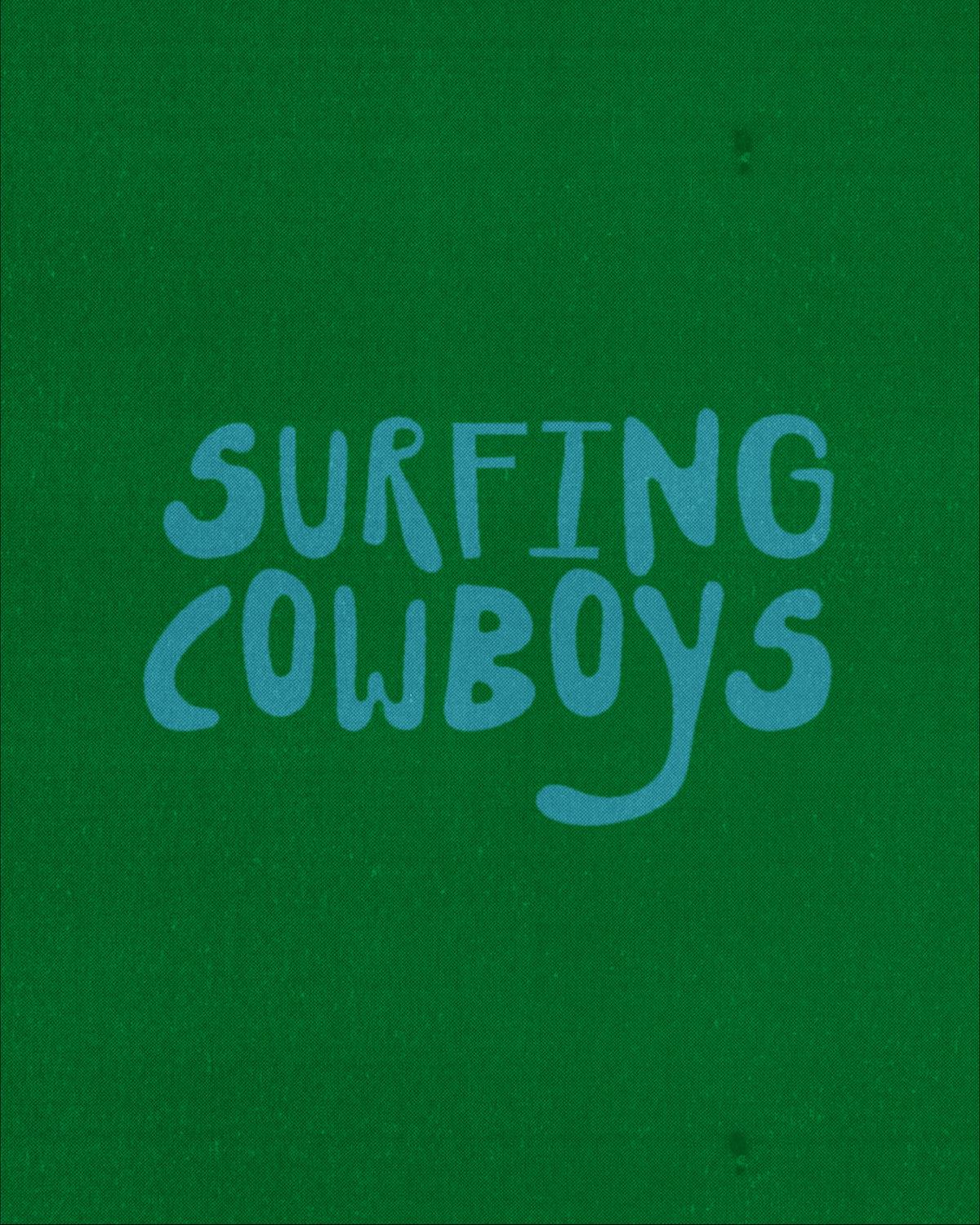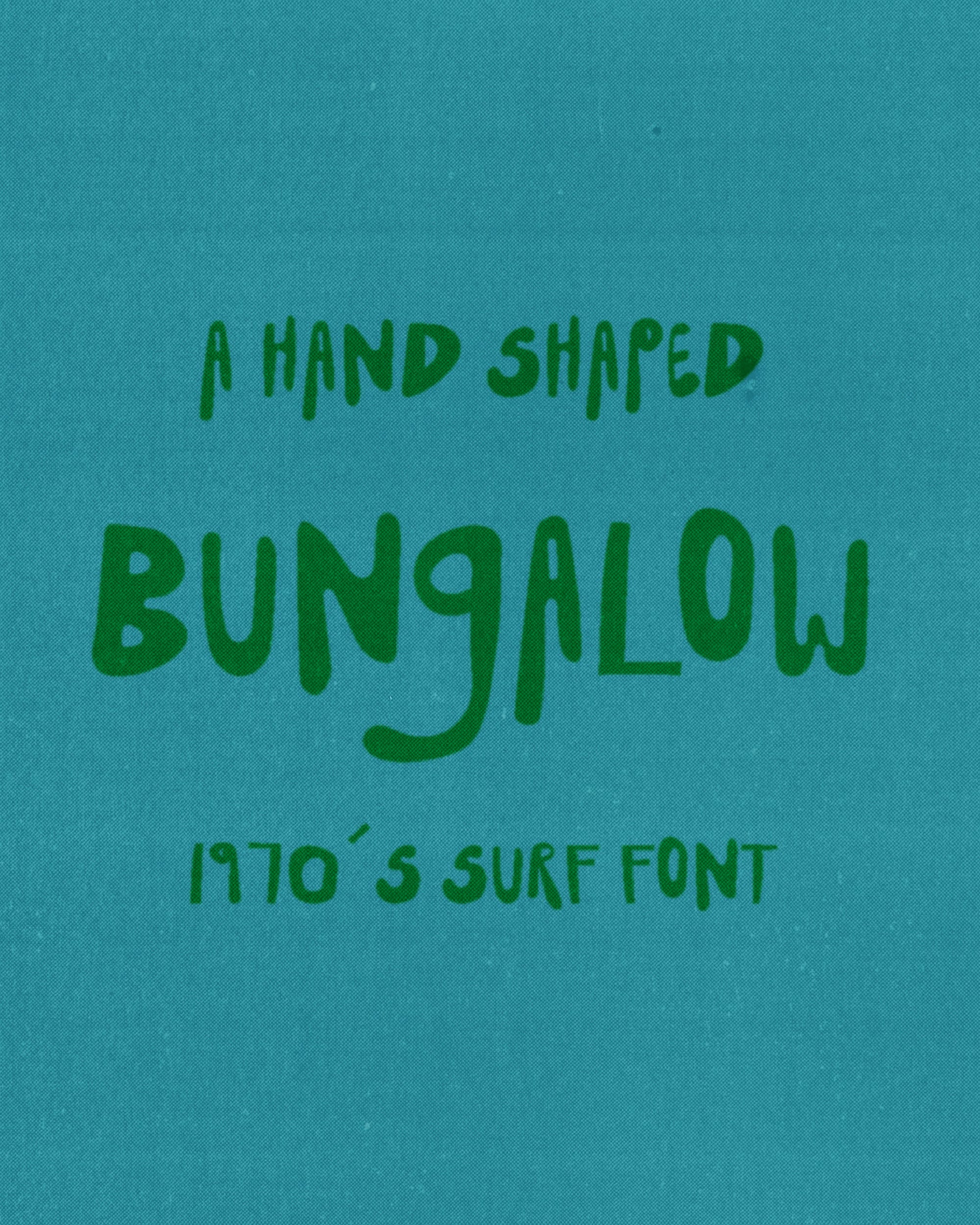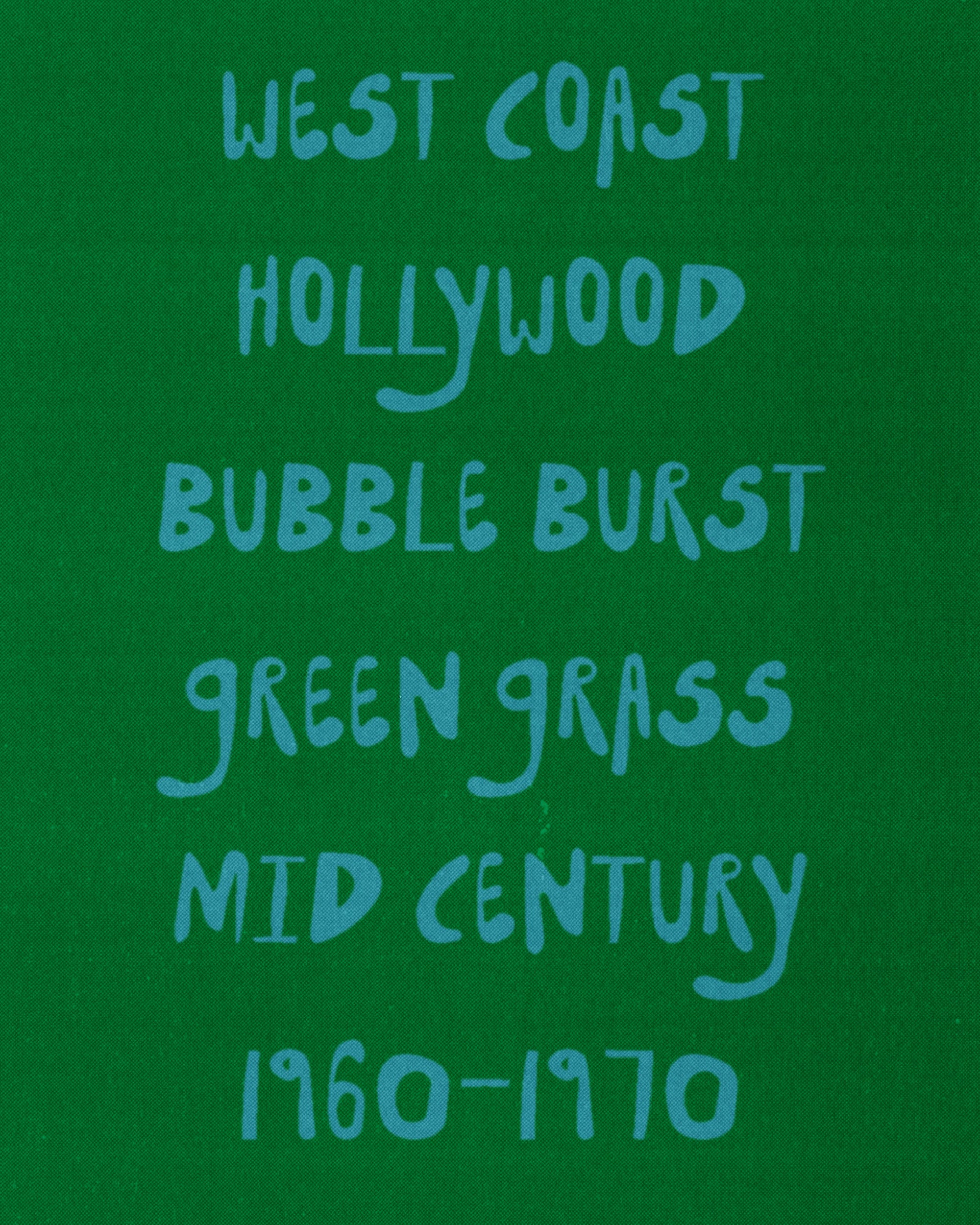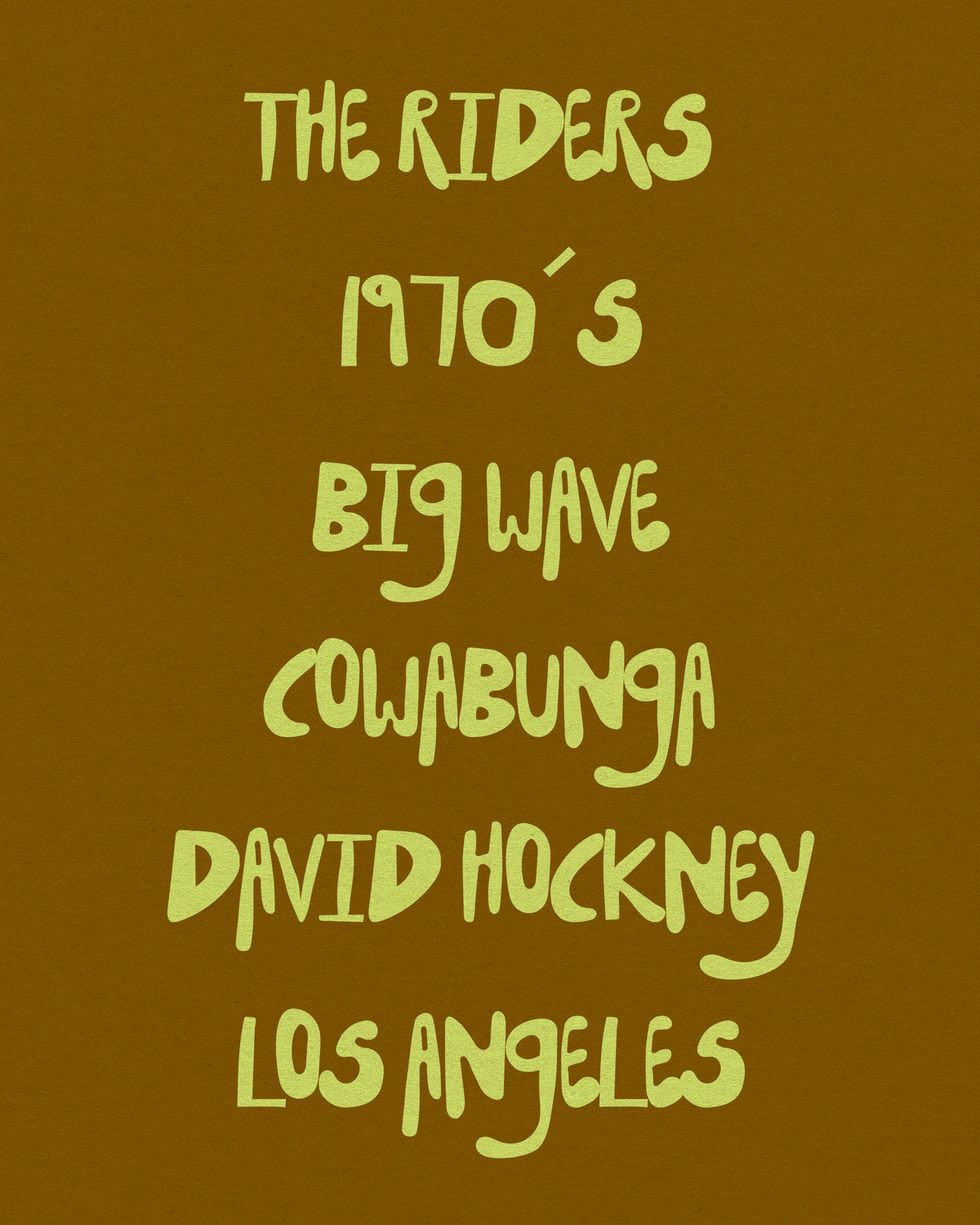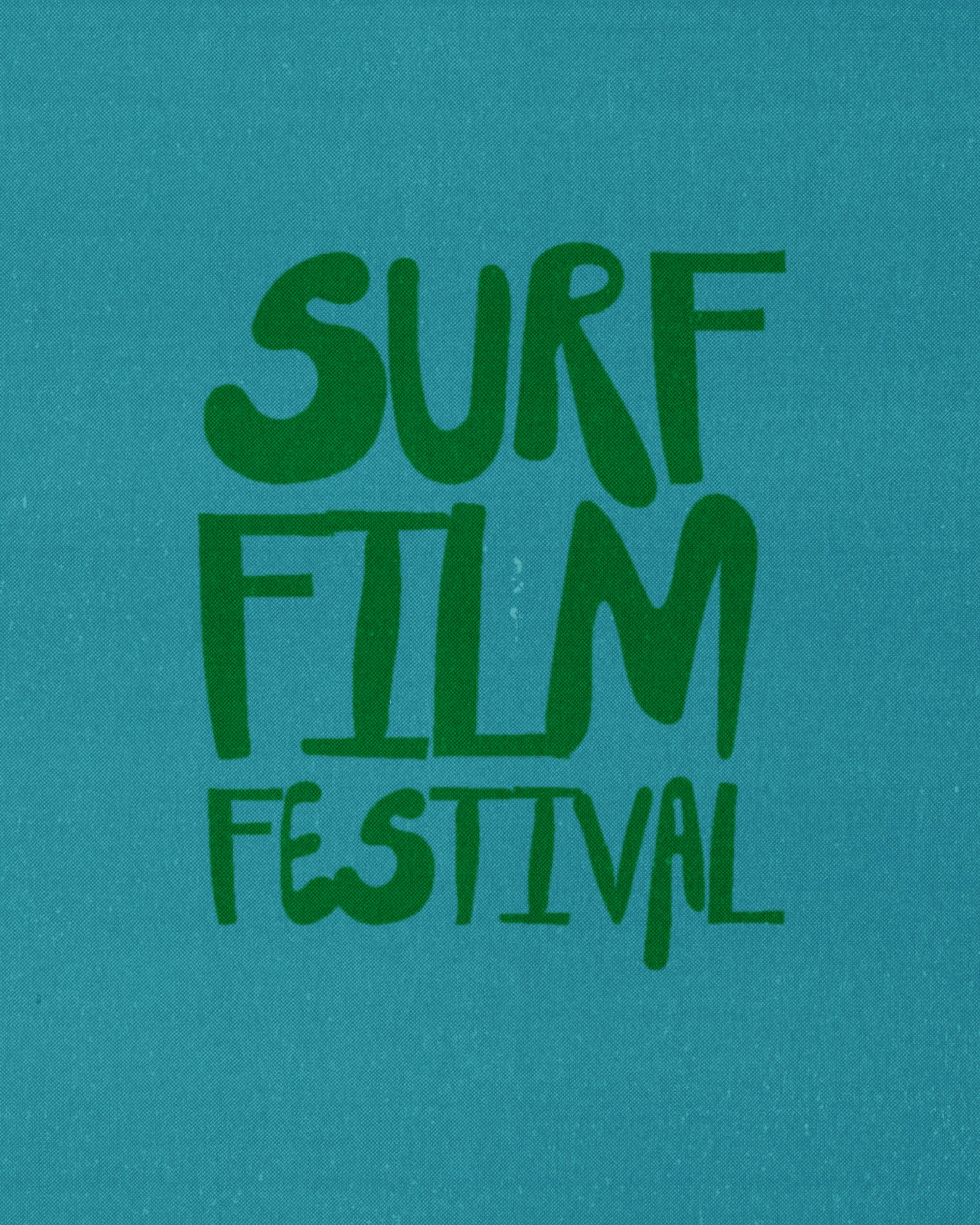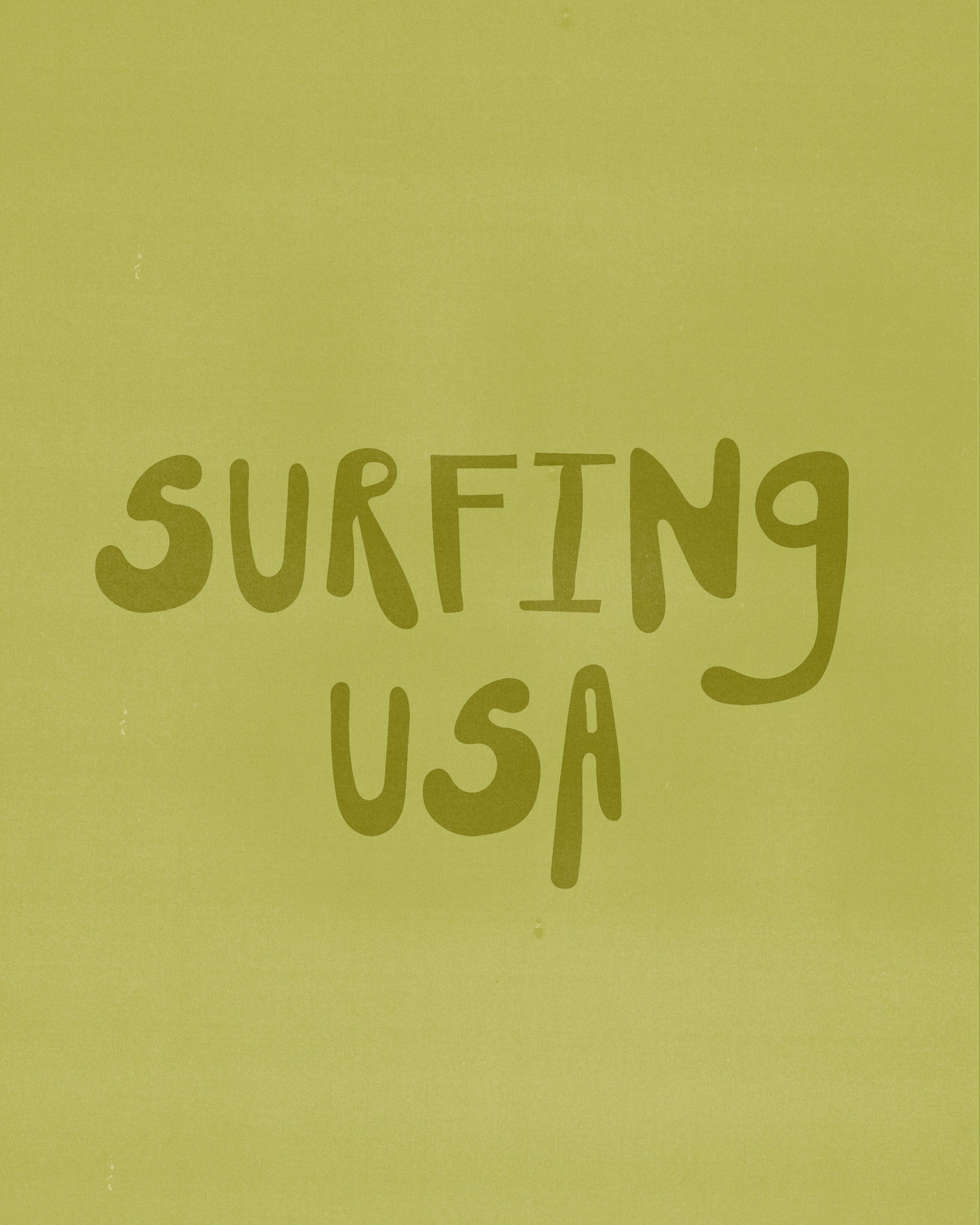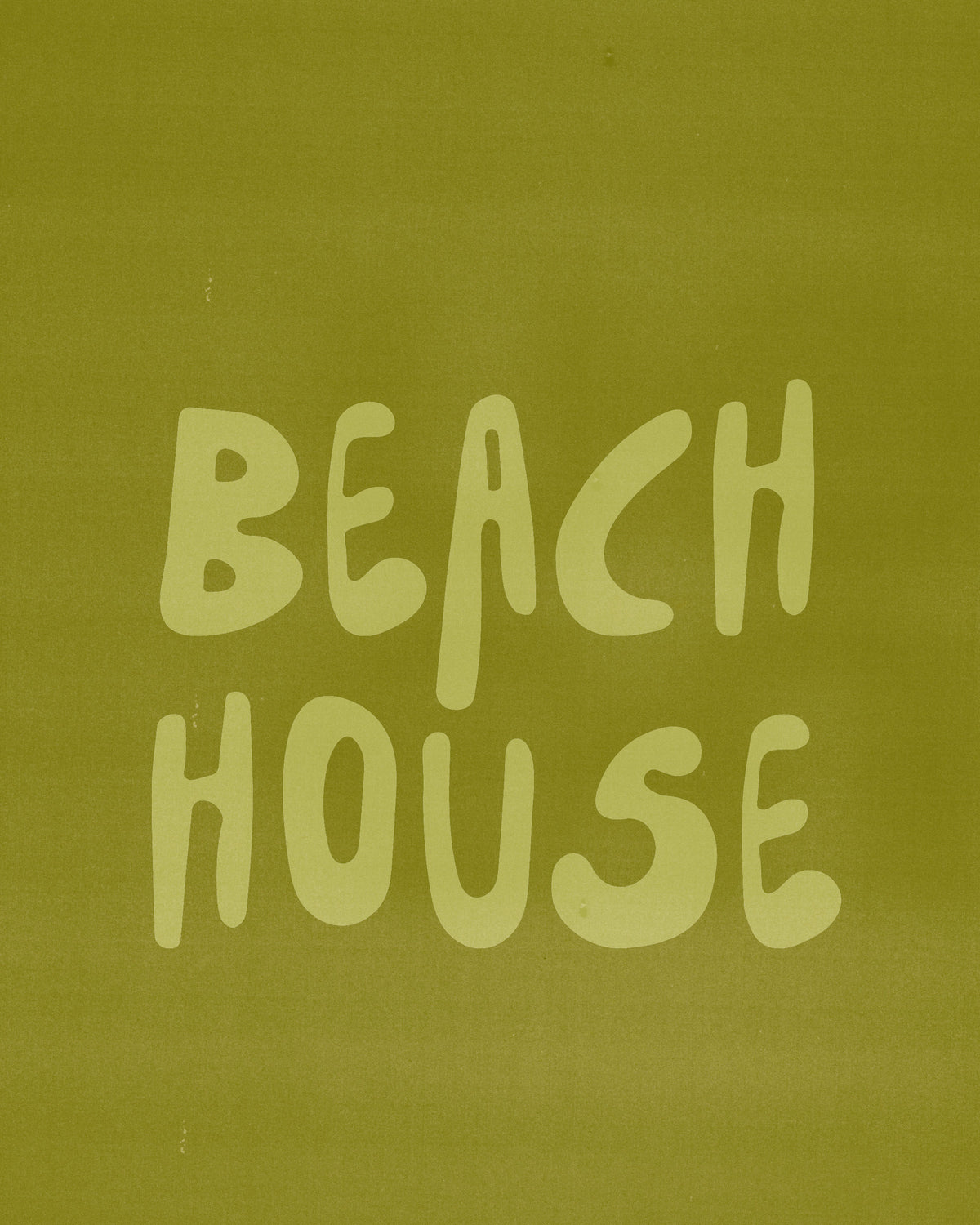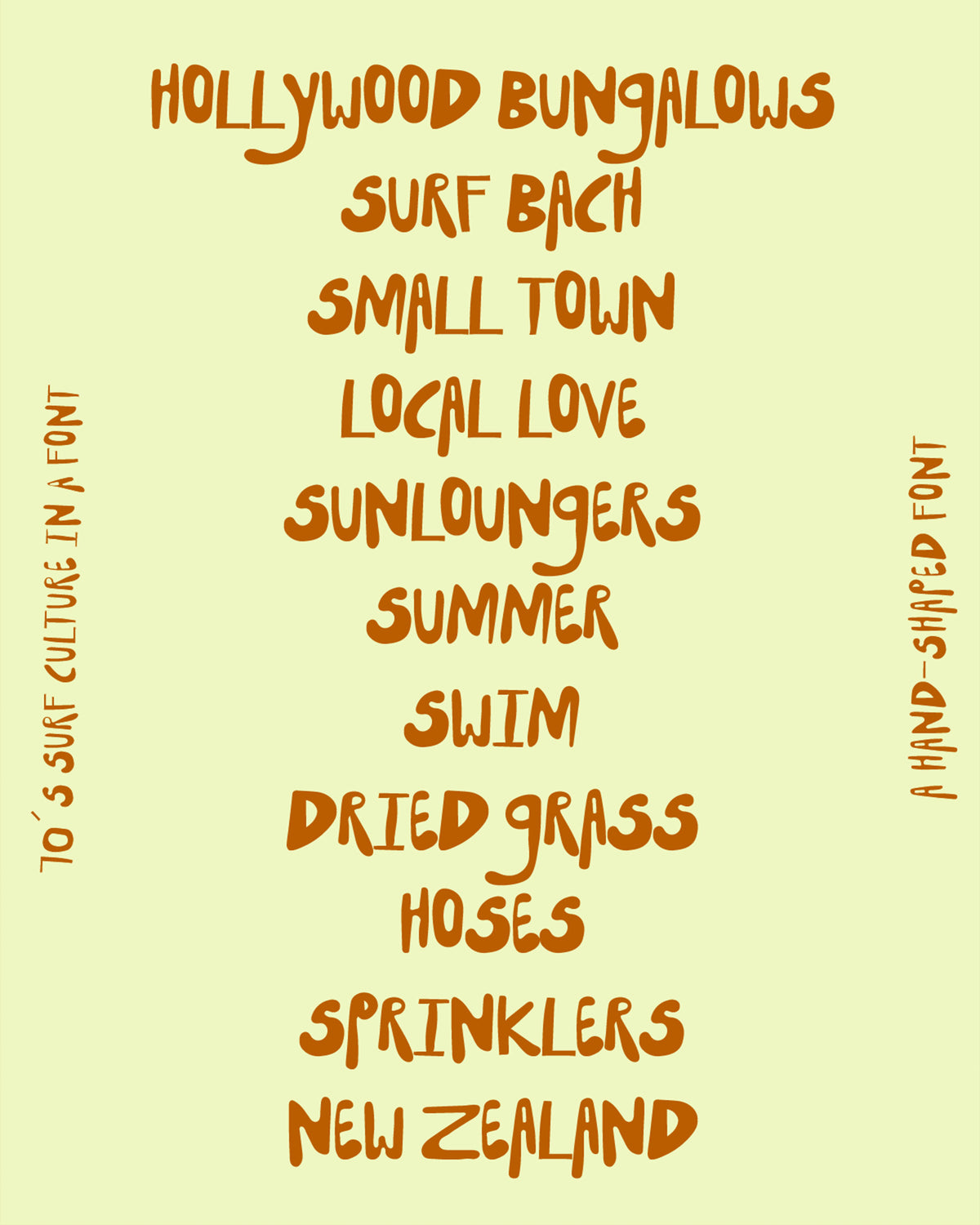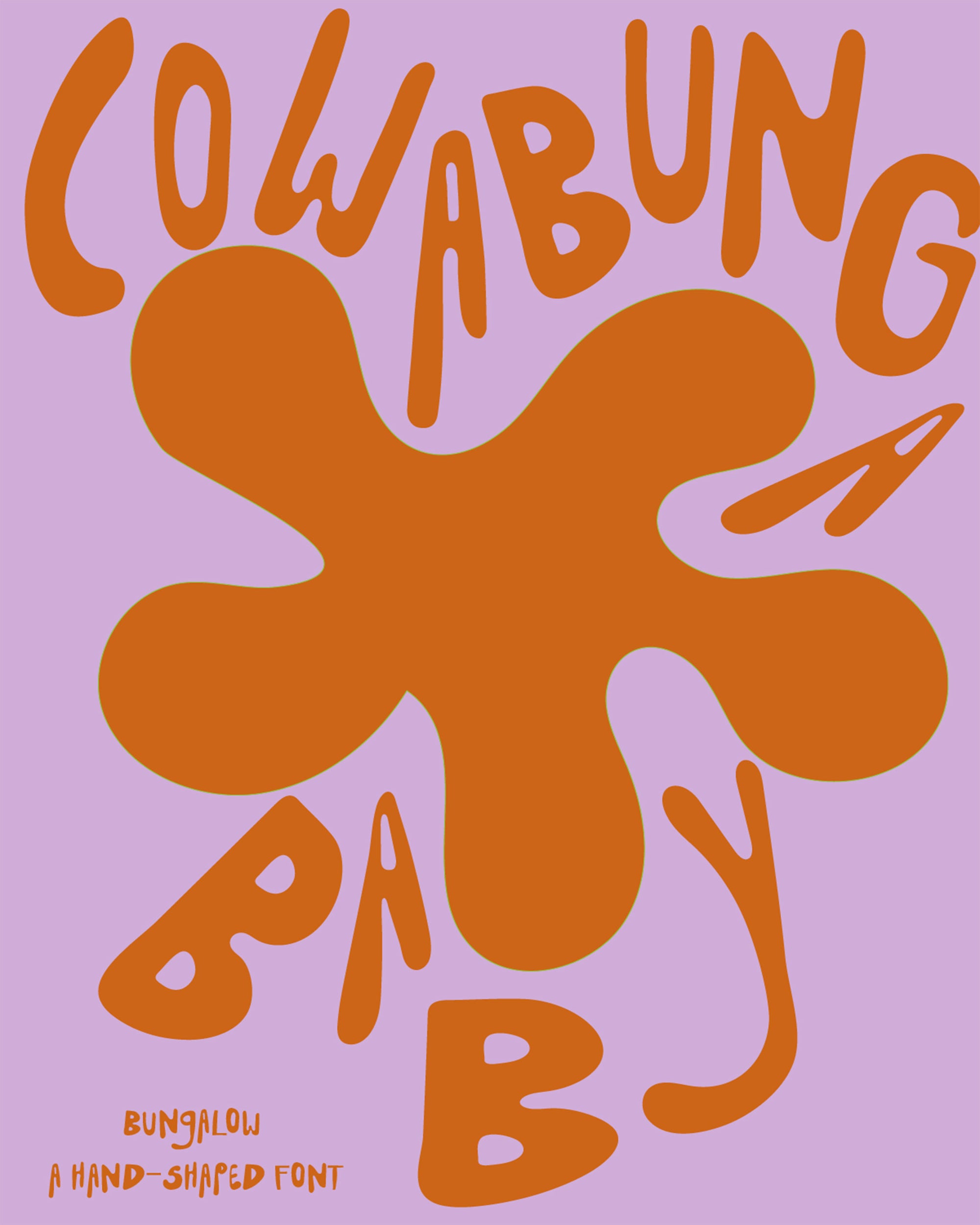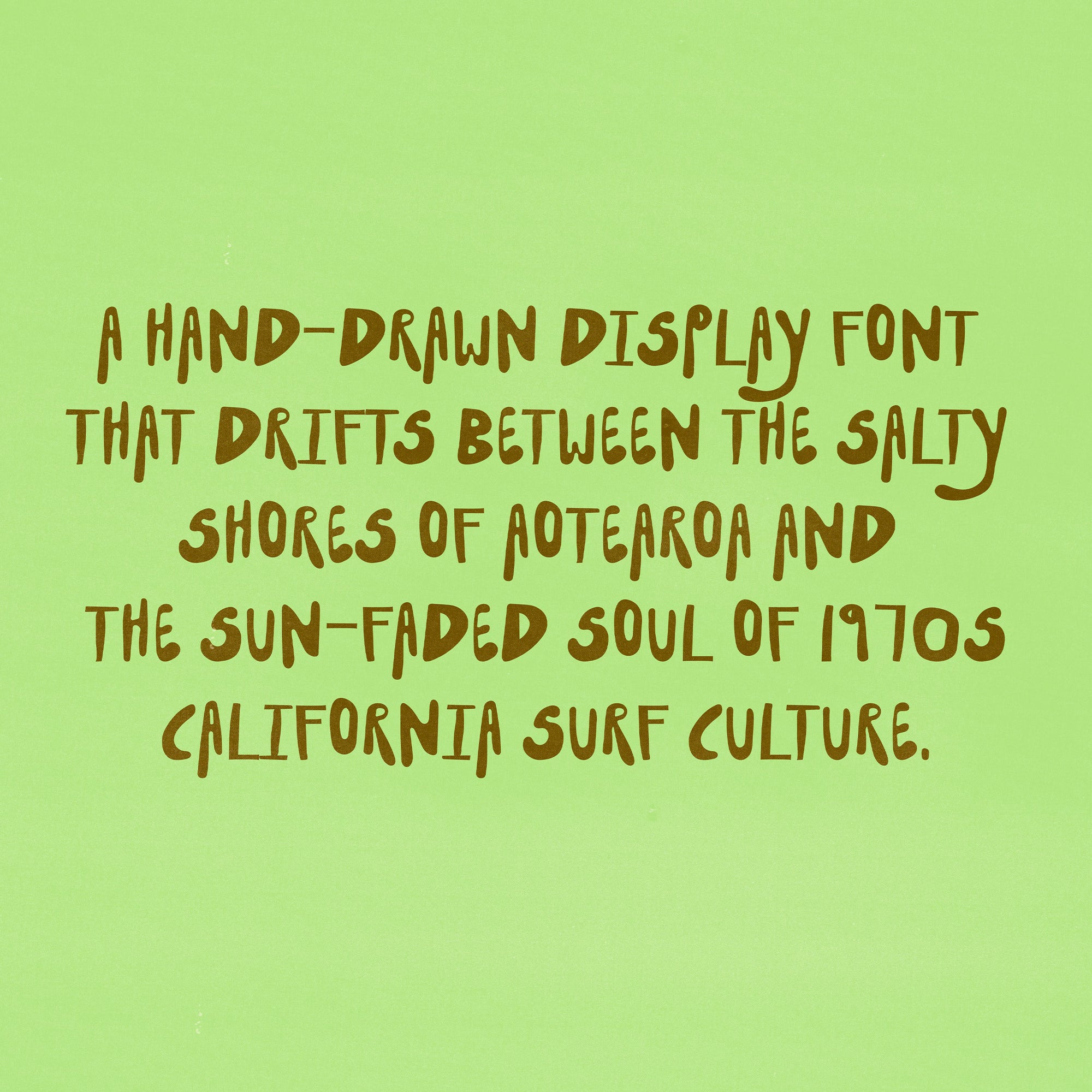
Bungalow Hand Drawn Surf Font
Madeline O'Donoghue
Bungalow is a hand-drawn display font inspired by Aotearoa’s coastal charm and the sun-faded spirit of 1970s California surf culture. Born from the rhythm of waves and the laid-back imperfections of Whangamatā — one of New Zealand’s most beloved surf spots — this font captures the fluidity and warmth of seaside life.
Originally created for a longboard surfboard shaper and glasser, Bungalow extends their hand-drawn logo into a full, character-filled typeface. Each letter carries gentle irregularities, mimicking the handmade qualities of surfboards, sign painting, and vintage beach bungalows.
Use Bungalow to bring a relaxed, nostalgic tone to branding, apparel, poster design, surf publications, or any creative project that calls for a sun-drenched, analogue aesthetic.